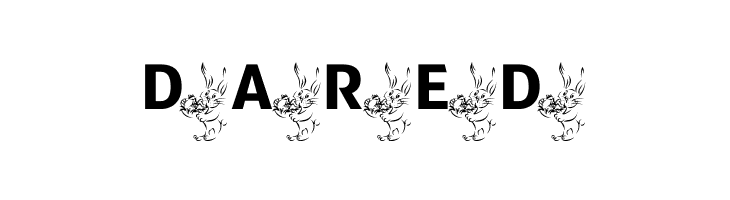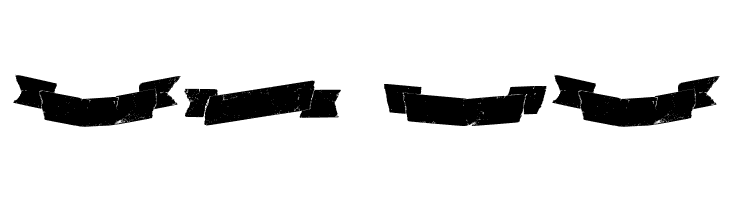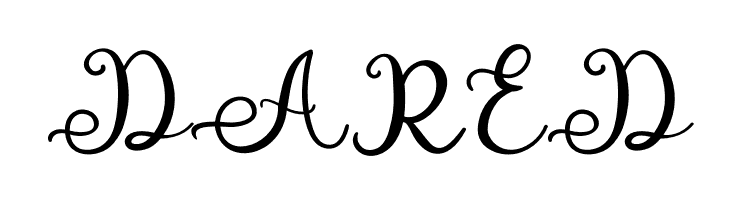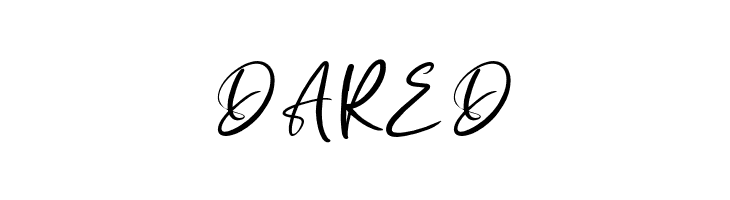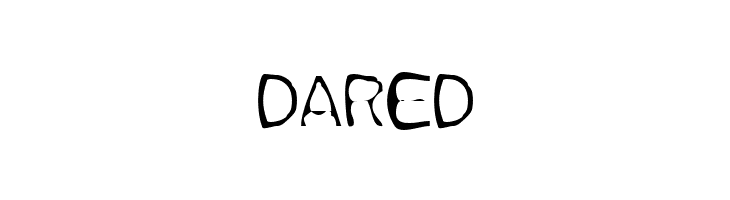
A lively, expressive handwritten script with fluid, dynamic characters.
A decorative, abstract font with fragmented and distorted letterforms.
A whimsical font with Easter bunny illustrations accompanying each character.
An elegant script font with intricate curls and flowing lines.
A distressed, torn paper-style font with irregular edges and a handmade feel.